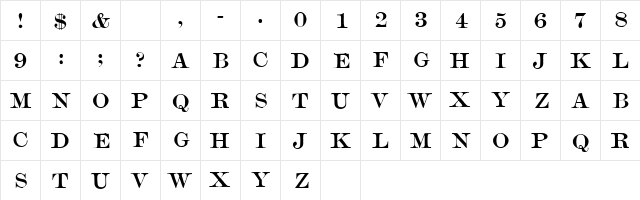
Mercantile Regular HPLHS
| Year | 1923 |
Design Context for Mercantile Regular Typeface
Mercantile Regular takes a measured approach to typography — its balanced proportions and neutral character make it a reliable workhorse for both digital and print work.